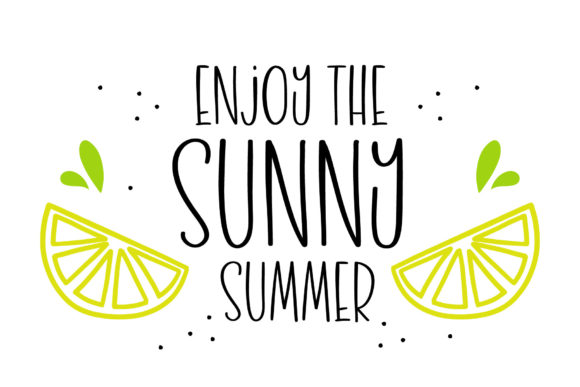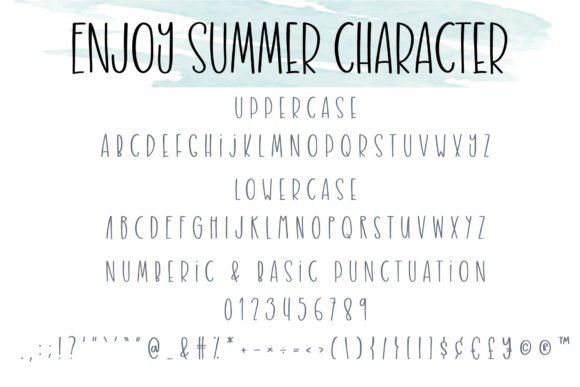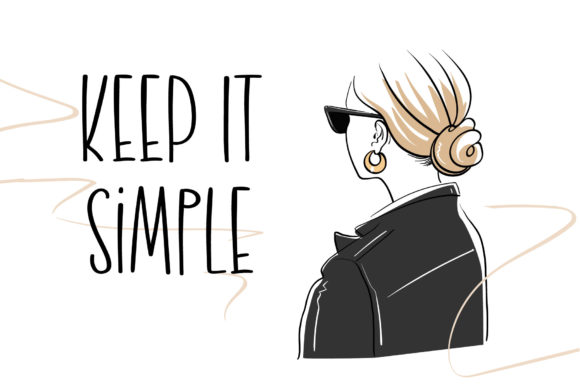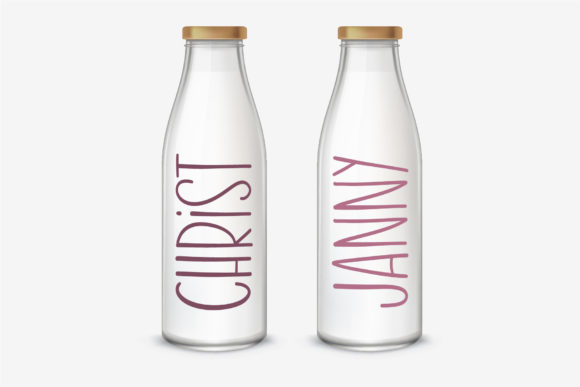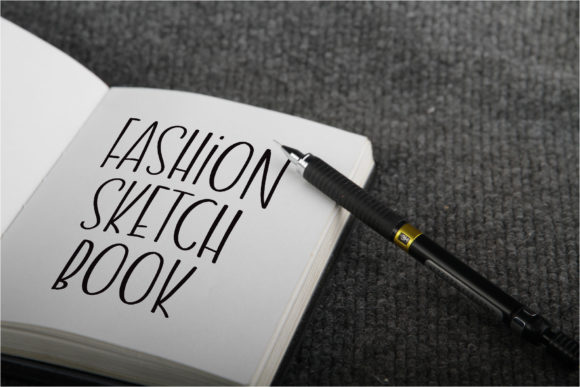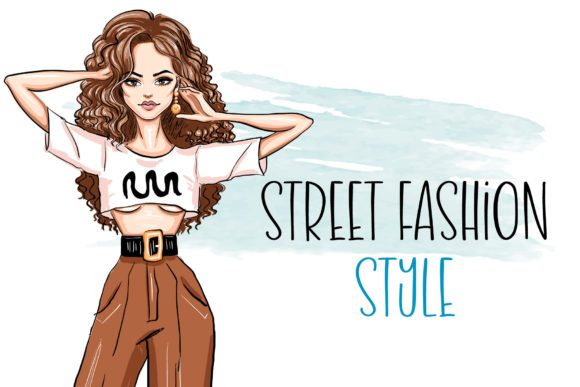
The Summer Vibes are Here: A Deep Dive into Enjoy Summer Font
Ah, the sweet feeling of a design project that’s just not coming together. You’re scrolling through font after font, trying to find that perfect match, and nothing seems quite right. I remember a particularly frustrating project where I was working on a whimsical craft tutorial, and I just couldn’t find a font that captured the carefree essence of summer. That was until I stumbled upon Enjoy Summer Font. 🌞
This charming, handwritten font has been a game-changer for me, and I’m excited to share my experience with you. Enjoy Summer is described as a “cute and relaxed handwritten font” with a natural and unique style that’s incredibly versatile. As the font’s description boasts, “The only limit is your imagination!” Let’s dive in and see if it lives up to the hype.
- ✅ The organic feel: Enjoy Summer Font has a beautifully imperfect, handwritten quality that makes it perfect for projects that need a personal touch.
- ✅ Versatility: This font can effortlessly shift between playful, casual designs and more elegant, sophisticated ones.
- ✅ Readability: Even at smaller sizes, Enjoy Summer remains clear and easy to read, making it a great choice for body text or headings.
- ✅ Unique character: The font’s distinct personality shines through in every letter, making your designs instantly recognizable.
While Enjoy Summer Font is incredibly versatile, there are a few minor considerations to keep in mind:
- ⚠️ Some letters may appear a bit inconsistent in size or spacing, which can actually add to its charm but might not be ideal for very formal projects.
- ⚠️ As with many handwritten fonts, it may not be the best choice for very long blocks of text, such as novels or academic papers.
- Take advantage of OpenType features, such as ligatures and stylistic alternates, to add depth to your text.
The Story Behind Enjoy Summer Font: A Designer Inspiration
Enjoy Summer Font was crafted with the intention of capturing the carefree spirit of summer. Its designer aimed to create a font that feels approachable, friendly, and perfect for a wide range of creative projects. While the exact backstory might be fictional, it’s clear that the font’s design was guided by a passion for bringing a touch of whimsy and warmth to designs.
Q: Does Enjoy Summer Font support OpenType features?
A: Yes, Enjoy Summer Font comes with OpenType features, including ligatures and stylistic alternates, allowing you to customize your text.